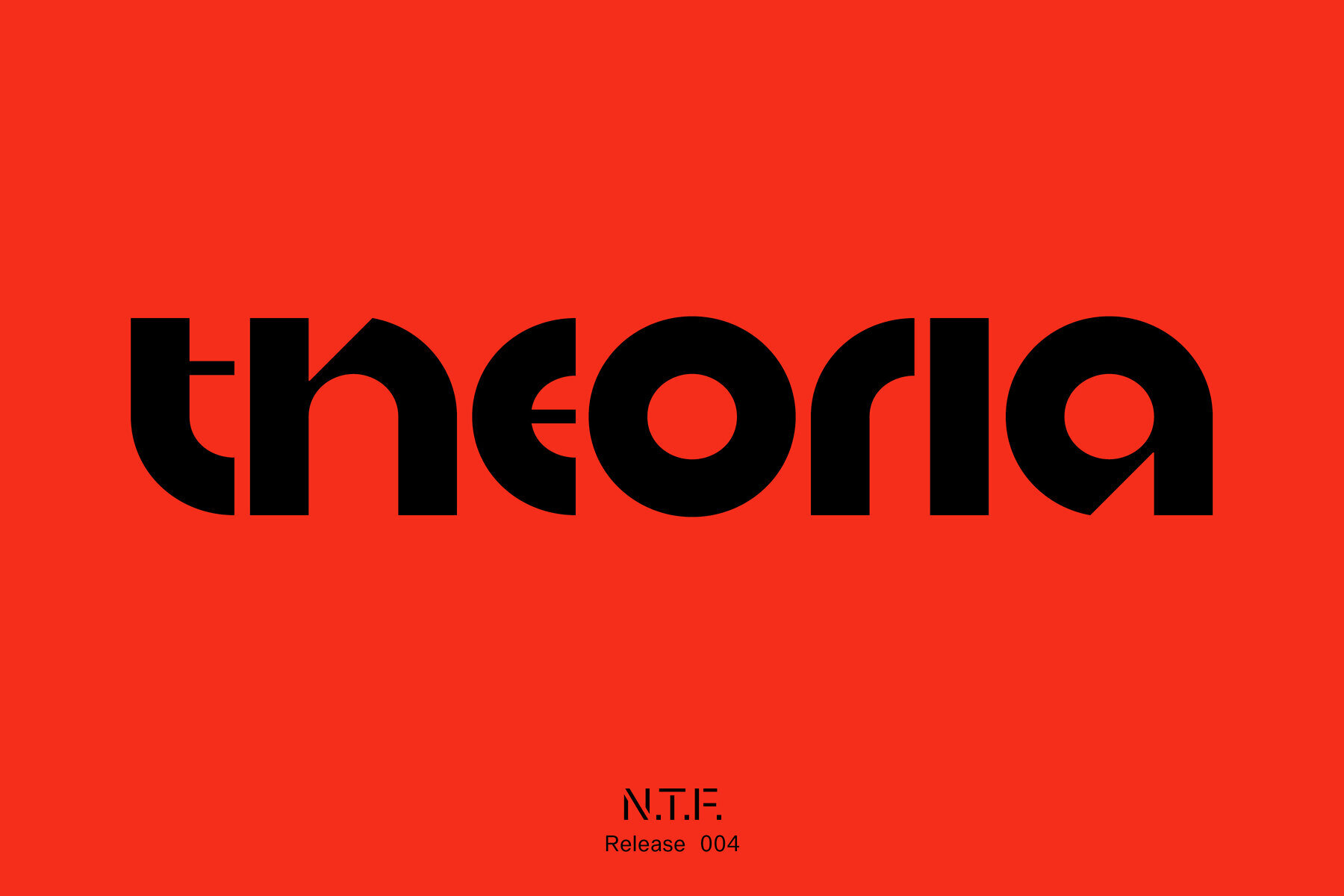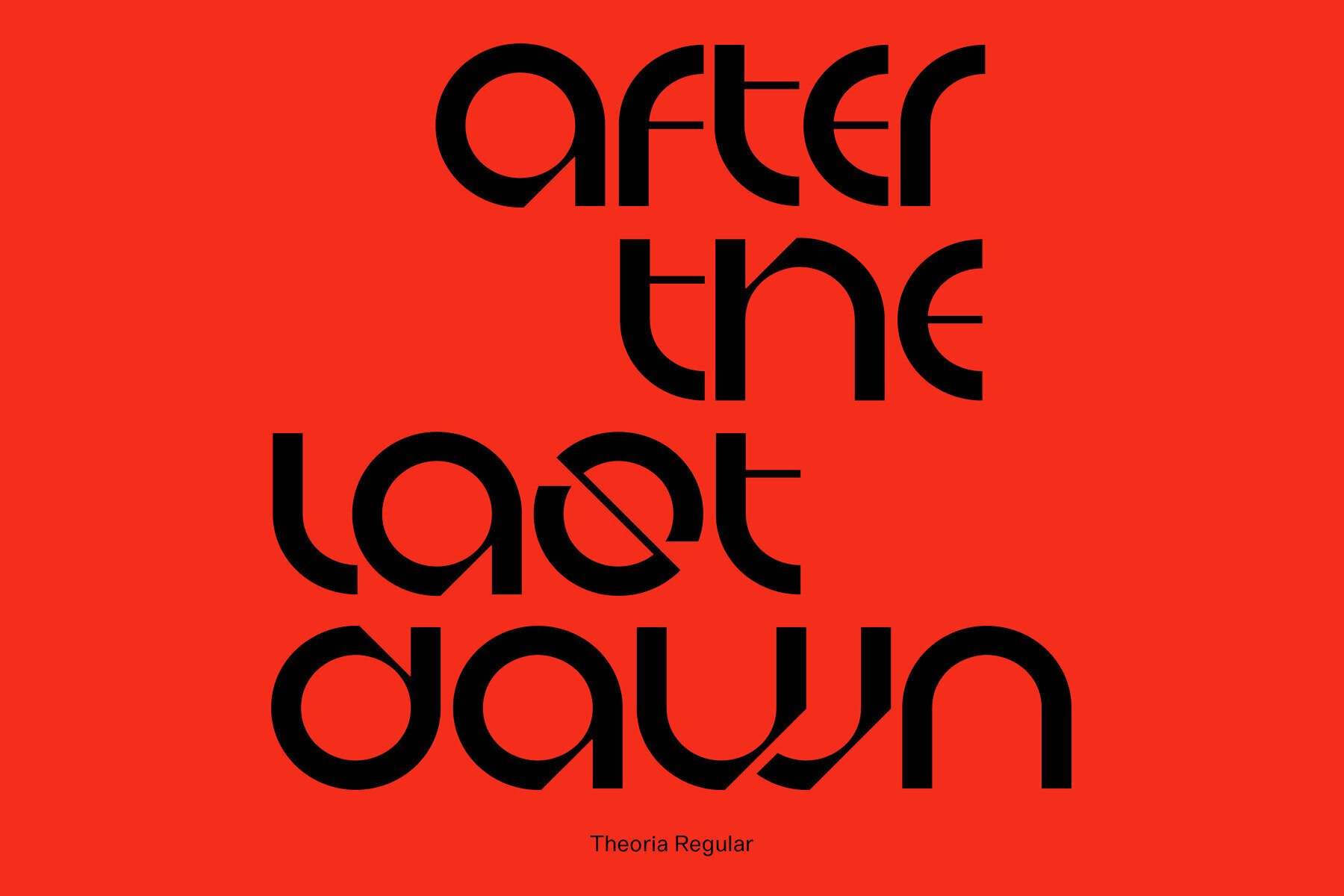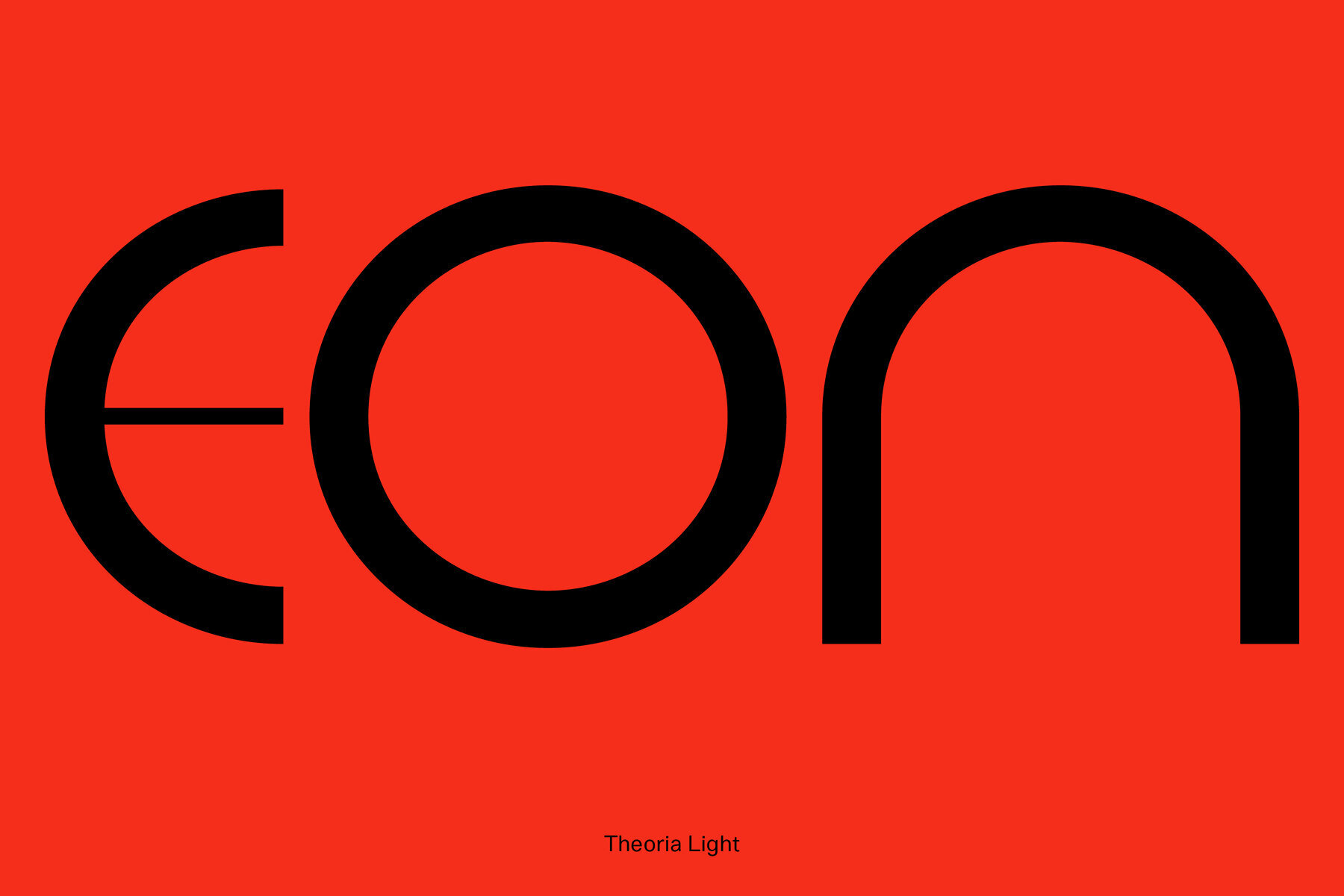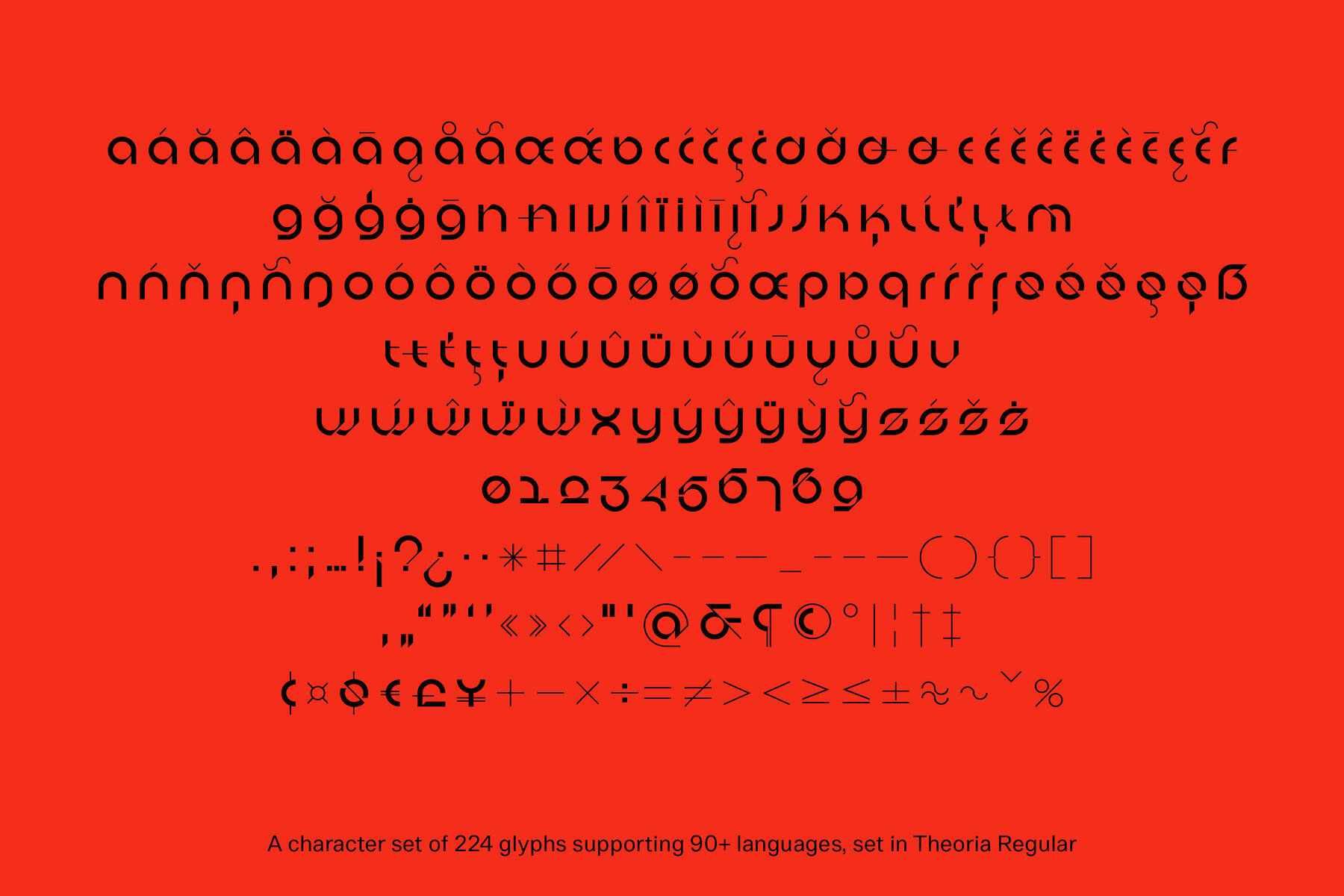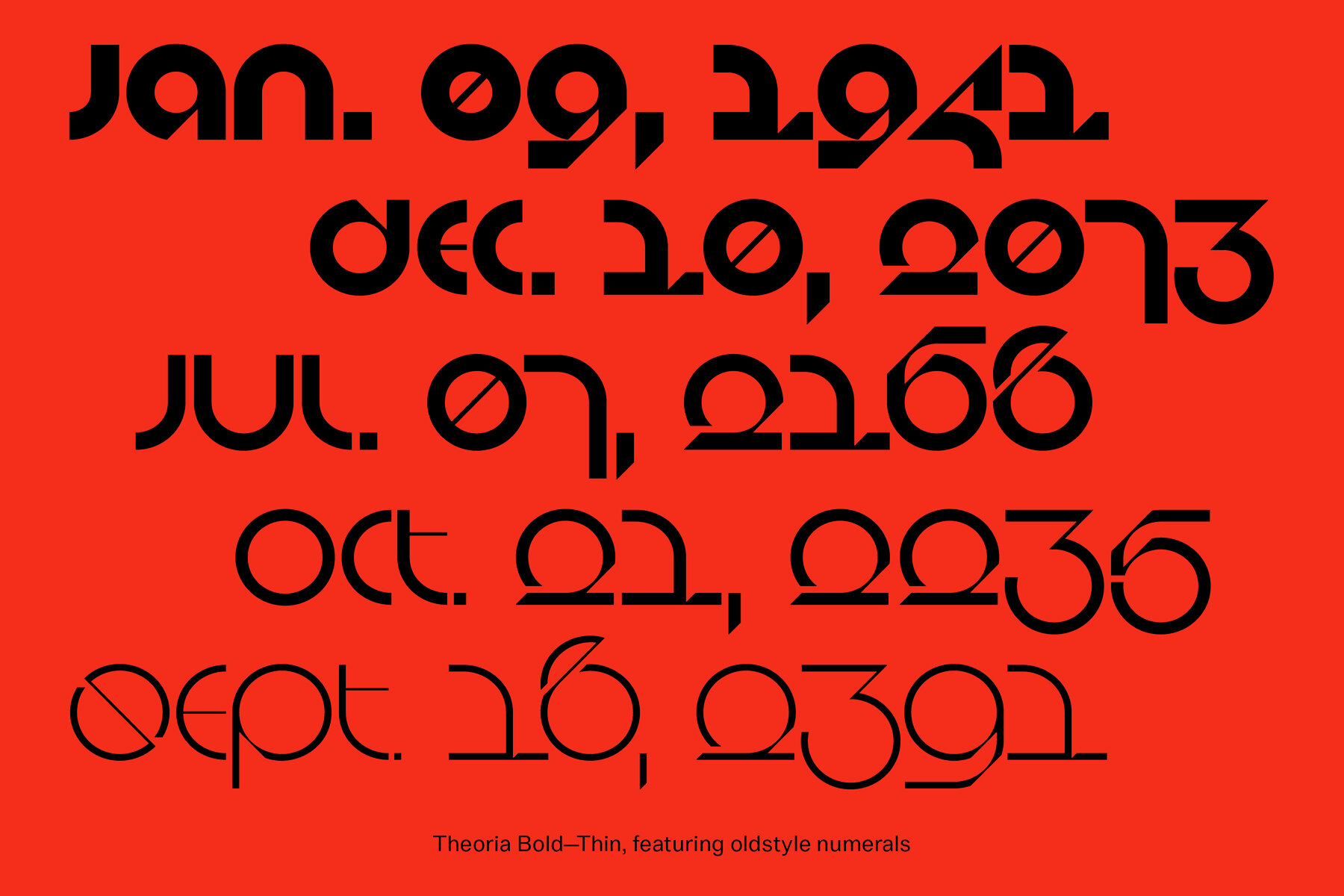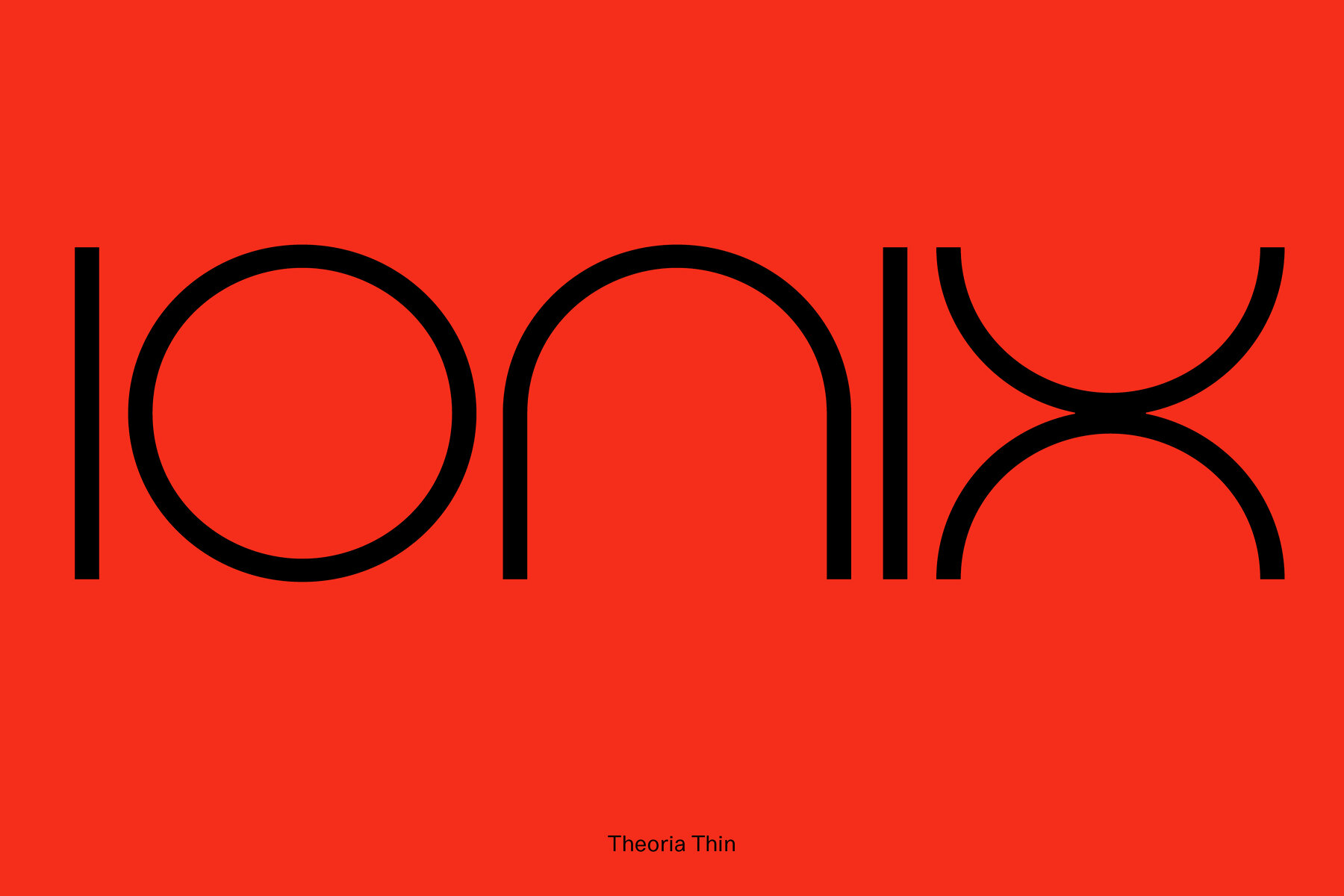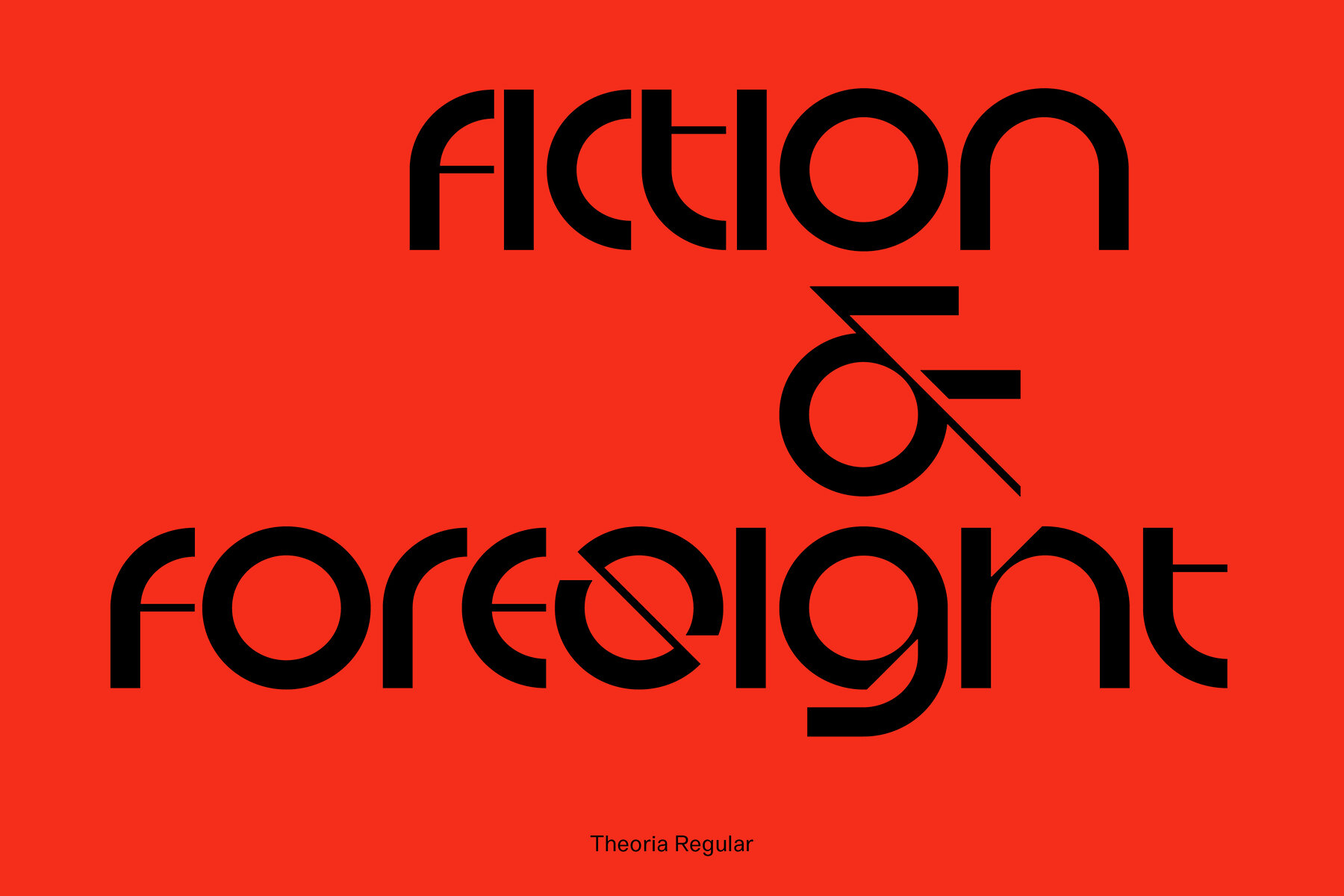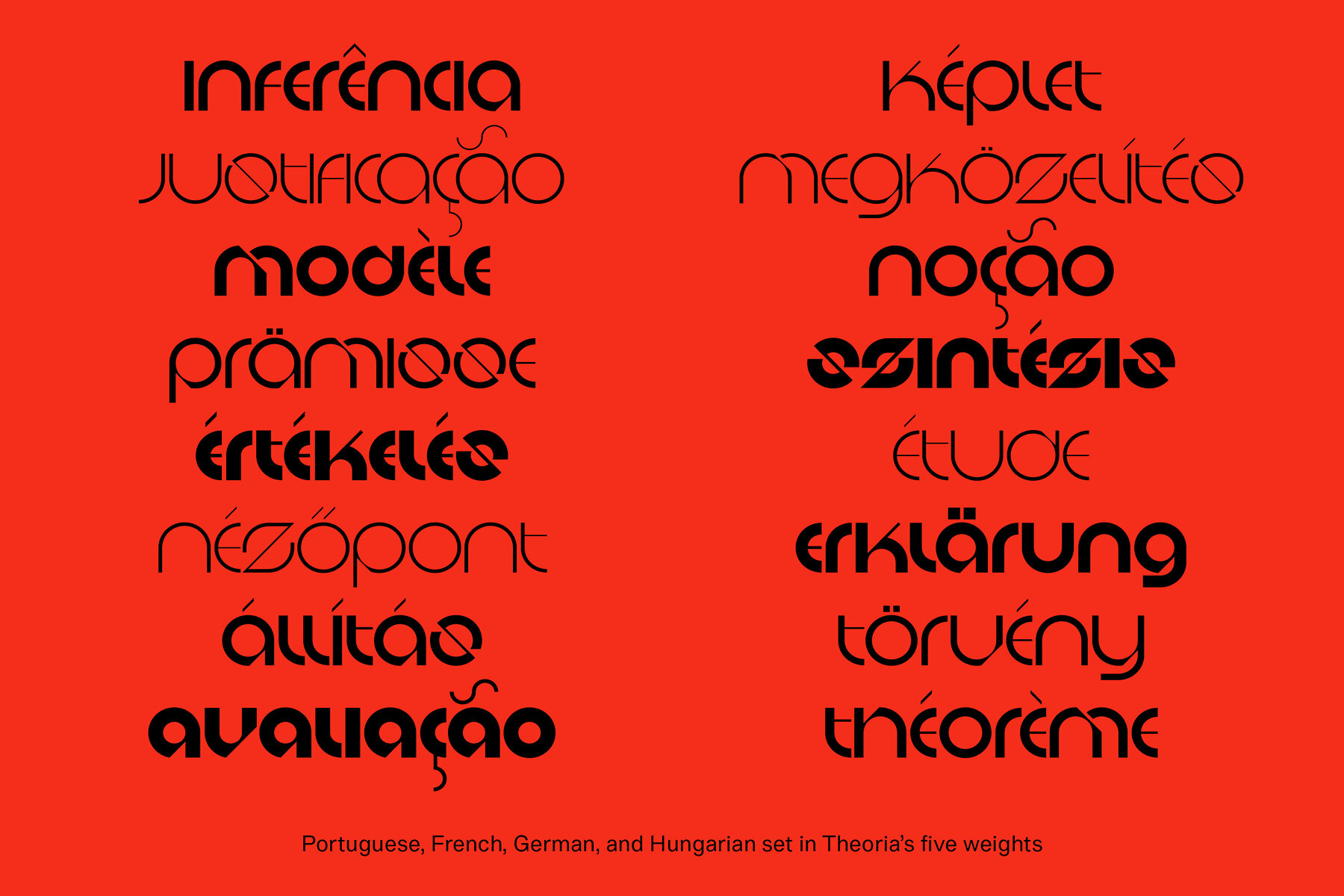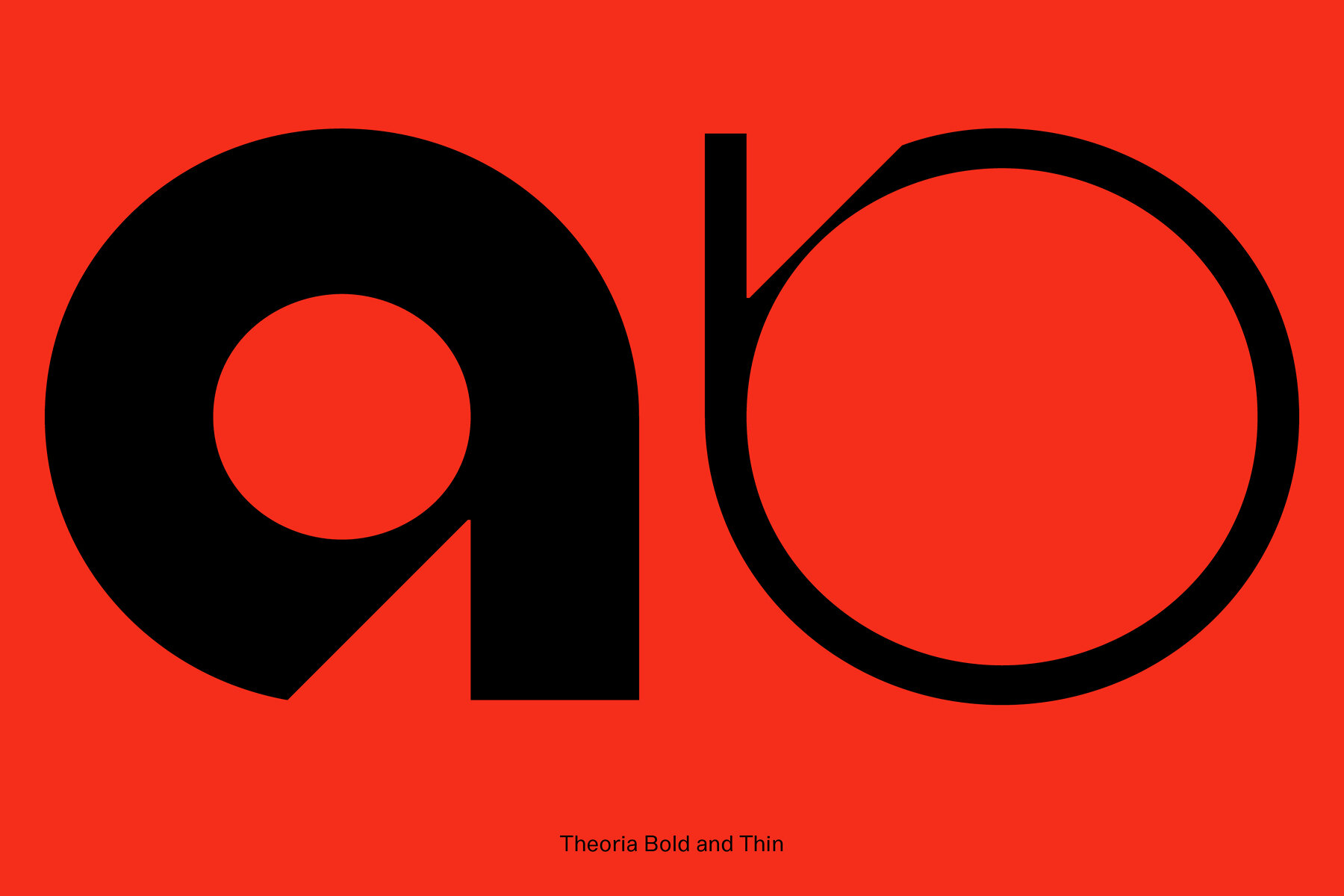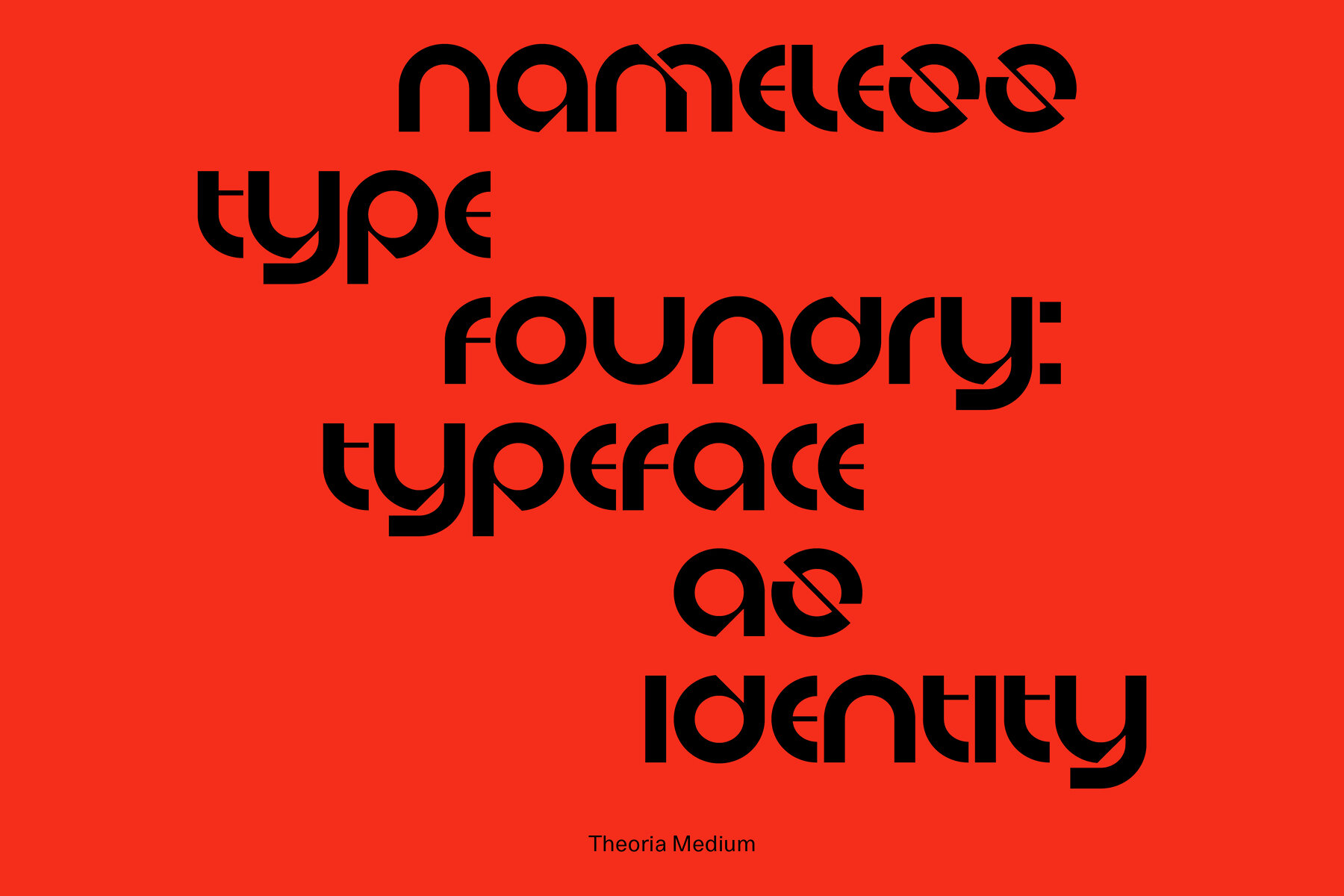
Theoria Font
Theoria is a decorative monocase display typeface characterized by sharp corners, angled cuts, and clean geometric forms. Its design evokes the tension of Cold War-era sci-fi book covers while embodying the clarity and restraint found in Dutch modernism. The result is a typographic voice that feels both authoritative and precise. Created for maximum visual impact, Theoria is ideal for logos, headlines, and speculative settings. It is available in five weights—Thin, Light, Regular, Medium, and Bold—along with a variable font version. Its character set includes 224 glyphs, enabling support for 90 languages, standard punctuation, and symbols.Theoria: A Monocase Typeface Evoking Sci-fi and Modernism